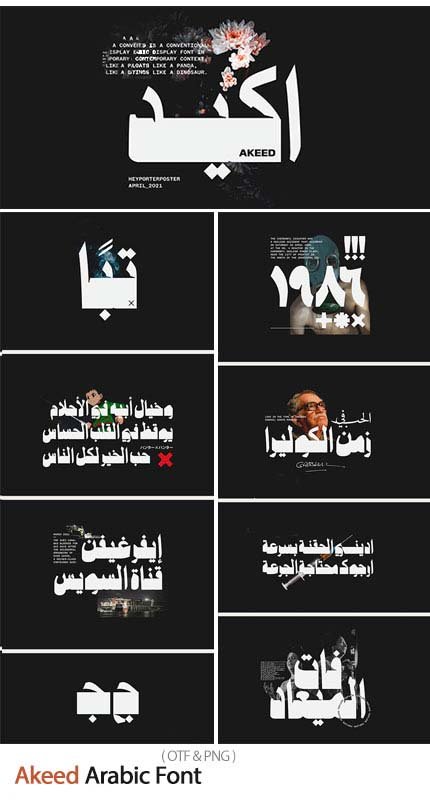
Akeed Arabic Font
Akid is a striking Arabic typeface that masterfully bridges tradition and modernity. Described as floating like a polar bear and wounding like a dinosaur, this font possesses a powerful, distinctive character that commands attention while maintaining elegant readability. Its unique design language gives designs and texts an unforgettable personality in contemporary environments.
Unique Design Character:
- Traditional Arabic calligraphic foundations with bold contemporary expression
- Powerful, distinctive letterforms with strong personality
- Dynamic tension between graceful flow and impactful presence
- Memorable shapes that stand out in any design
- Perfect balance of tradition and modern edge
Arabic Script:
- Complete Arabic character set
- Full support for diacritics and marks
- Proper character connections and positioning
- Optimized for display sizes and headlines
- Unique interpretations of traditional forms
- Titles & Headlines: Make bold statements with unforgettable typography
- Logos: Create distinctive brand identities with strong personality
- Banners: Command attention in any environment
- Posters: Design impactful promotional materials
- Packaging: Stand out on retail shelves
- Book Covers: Create memorable first impressions
- Signage: Unforgettable displays in physical spaces
- Social Media: Content that stops the scroll
- Advertising: Campaigns that demand attention
- Editorial Design: Powerful accents and features
- Unique Personality: A font that stands apart from conventional designs
- Strong Character: Commands attention while maintaining readability
- Contemporary Context: Traditional foundations with modern expression
- Versatile Impact: Perfect for any project needing distinctive typography
- Professional Quality: High-caliber design for serious creative work
Key Features of Akid Font:
- Traditional Arabic display font with contemporary expression
- Unique, powerful design with strong personality
- Complete Arabic character set
- Perfect for titles, logos, banners, and creative designs